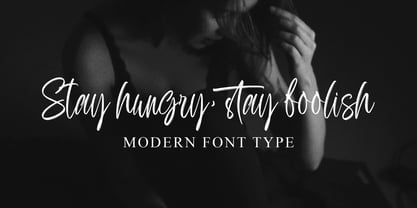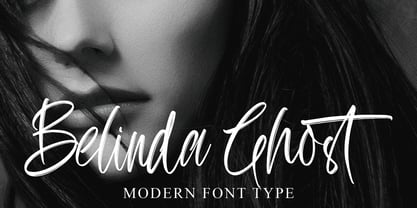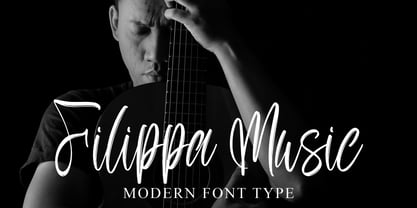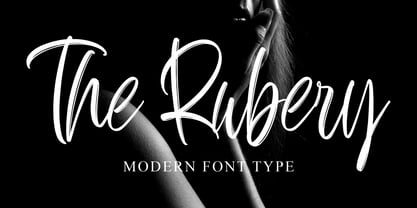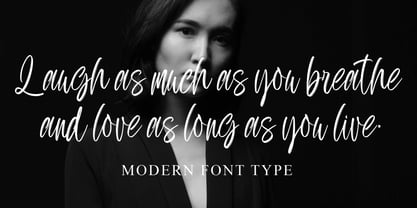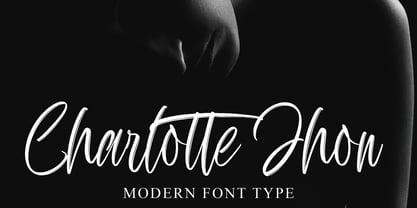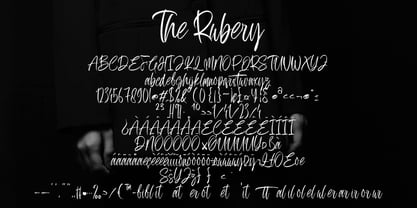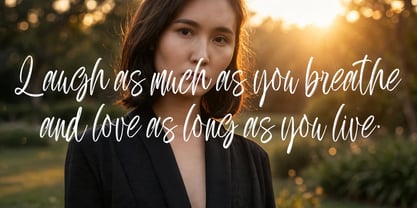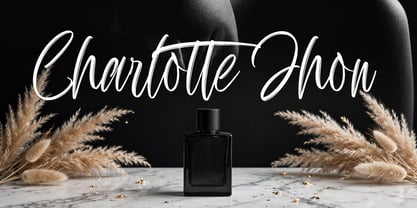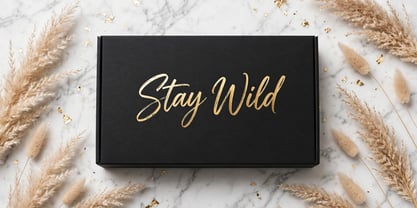
The Rubery
by Naatypo
The The Rubery Font Family was designed by Kurnia Elis Setyorini and published by Naatypo. The Rubery contains 1 styles.
Step into the world of creativity with The Rubery font, a captivating tool for adding a personal touch to your projects. Picture it gracing inspiring quotes, elevating classy menus, defining catchy taglines, illuminating vibrant flyers, and personalizing memorable invitations. Imagine it adding warmth to heartfelt greeting cards, adding flair to impactful posters or enriching bespoke business cards. The Rubery brings style to clothing designs, emotion to expressive letters, and sophistication to personalized stationery. As an artfully-created handwritten font enriched by a brush-stroke technique, The Rubery boasts a wealth of stylistic alternates and ligatures. Its unparalleled style injects your project with sophistication and elemental charm ensuring it radiates elegance and memorability in every usage.